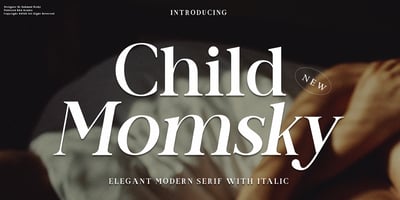
CHILD & MOMSKY Font Family was designed by Rahmad Rizky and published by Rhd Studio. CHILD & MOMSKY contains 2 styles and family package options. Style and Grace personified – say Child Momsky. This typeface has two main styles, Regular and Italic, that are designed to work elegantly in unison and apart.The serif has a boldy different ‘ f’, which sets it apart from regular serifs…..as Child Momsky likes to stand out from the rest. A regular ‘f’ is included in its alternates, and a extra font style with a regular f is included for projects that require a more staid elegance.The Italic style is dreamy, sultry and light-footed – a perfect partner for the more serious serif.Use them together or apart for stylish, stand-out type designs and projects.For those of you who do not have access to Opentype Software, such as Canva Users, a separately available ‘extra letters’ font set will be available for purchase soon.Language Supported : Danish, English, French, German, German (Switzerland), Italian, Low German, Luxembourgish, Norwegian BokmÃ¥l, Norwegian Nynorsk, Portuguese, Swedish, Swiss German.Enjoy